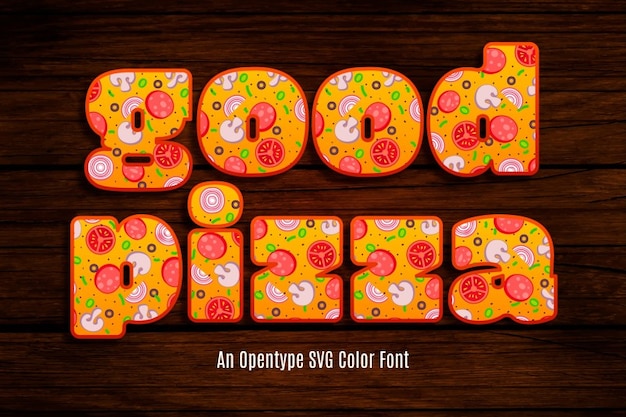
Good Pizza
Good Pizza Font
Savor the nostalgia with 'Good Pizza' font—rounded and old-fashioned, each character embodies the timeless appeal of a pizzeria. This typographic choice adds a dash of vintage flavor to your designs, capturing the essence of good food and classic charm.